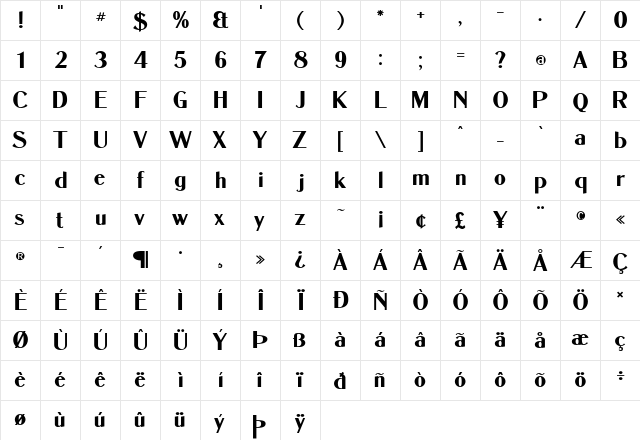
Dukas CF Bold Regular
Design Context for Dukas CF Bold Typeface
Dukas CF Bold offers clean, dependable letterforms without strong stylistic allegiance, making it a practical choice for designers who need flexibility. Its bold stroke weight gives it real presence on the page.